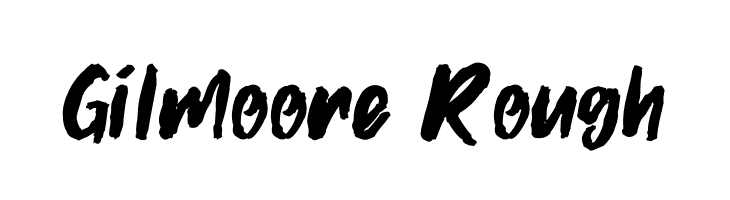
A playful handwritten font with smooth curves and rounded edges.
A bold, geometric font with tall, narrow characters and a modern style.
A sleek, futuristic italic font with sharp angles and clean lines.
A dynamic, brush-like font with sharp, angular strokes and an artistic flair.
A bold, rounded font with a futuristic and playful design.
A decorative and artistic font with playful, irregular shapes.
A playful, swash-style font with elegant, flowing letters.
An elegant, flowing script font with a handwritten aesthetic.
A modern, rounded italic font with a smooth and clean appearance.
A bold, distressed font with a rugged, vintage appearance.